Japanese Yakumono (Punctuation Marks and Symbols) 04: “Arrow”
Similar to the previously-mentioned parentheses, there are several types of arrows. Depending on the arrow, each glyph must be prepared up and down, left and right. Using the same shape for the horizontal direction and vertical direction may not look like the same thickness. In such cases, adjustment is made so as make arrows look the same. If we don’t properly check where the same shape is used, and where adjustments are made, it can become a problem at the time of correction.
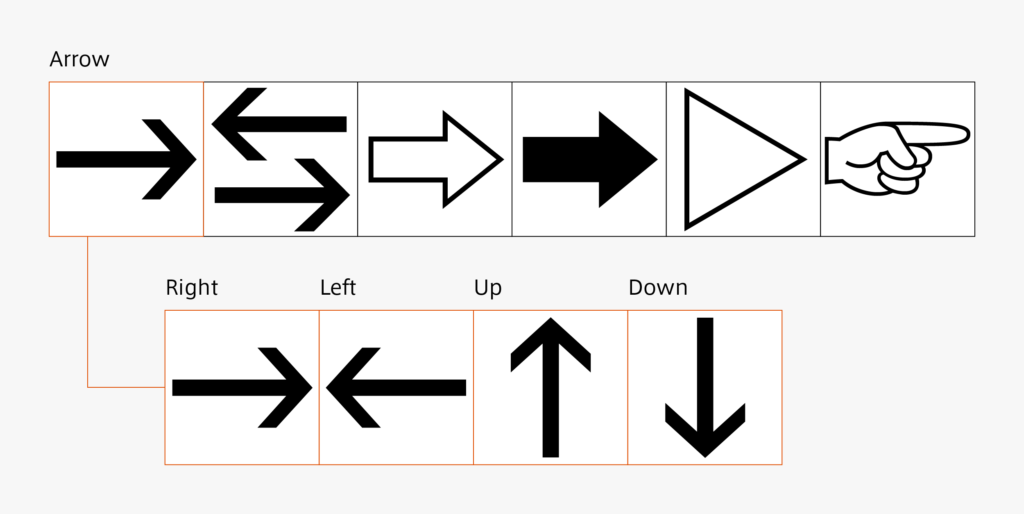
The way of attaching thickness in arrow changes using Mincho typeface, and Gothic typeface and sans-serif typeface is a point of consideration. For Gothic typefaces and sans-serif typefaces, the thickness is the same as the other glyphs. For the Mincho typeface, the thinner arrow is generally used even for the thick weight. Its thinness is close to the horizontal kanji stroke. The thickness is not set like the vertical stroke for an arrow in the vertical direction.